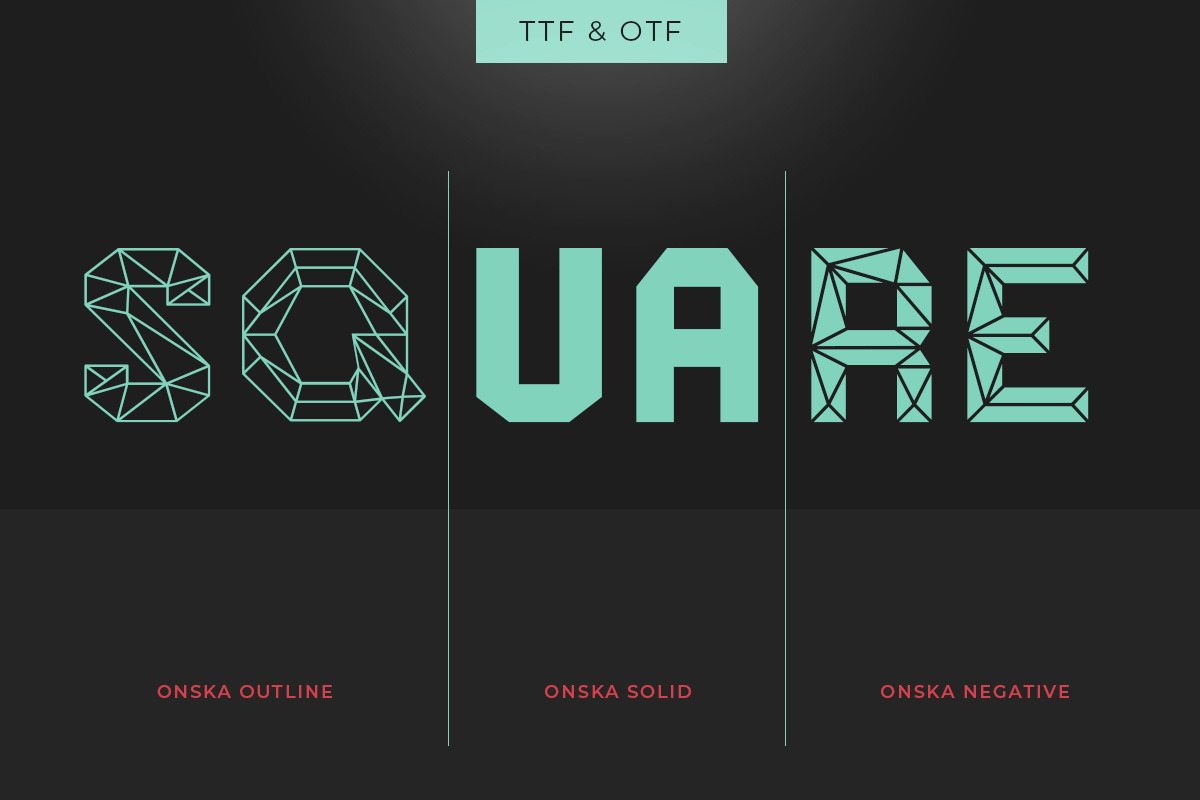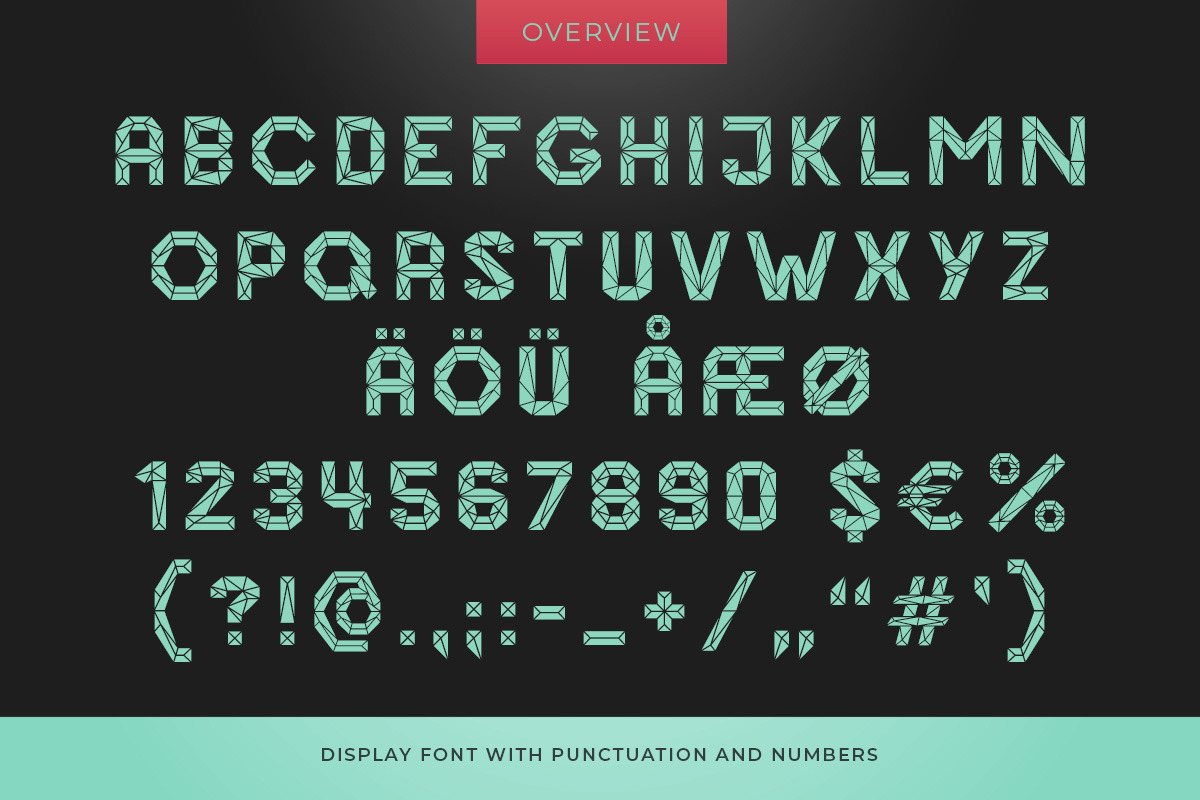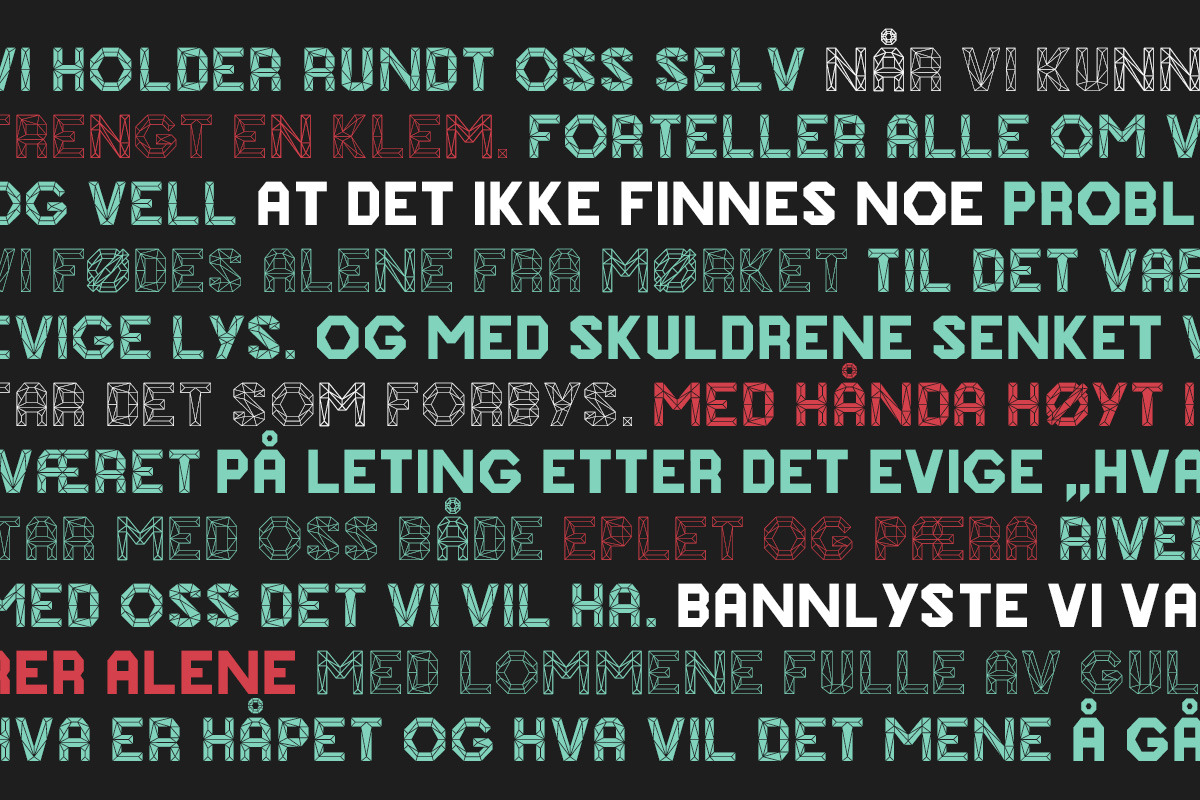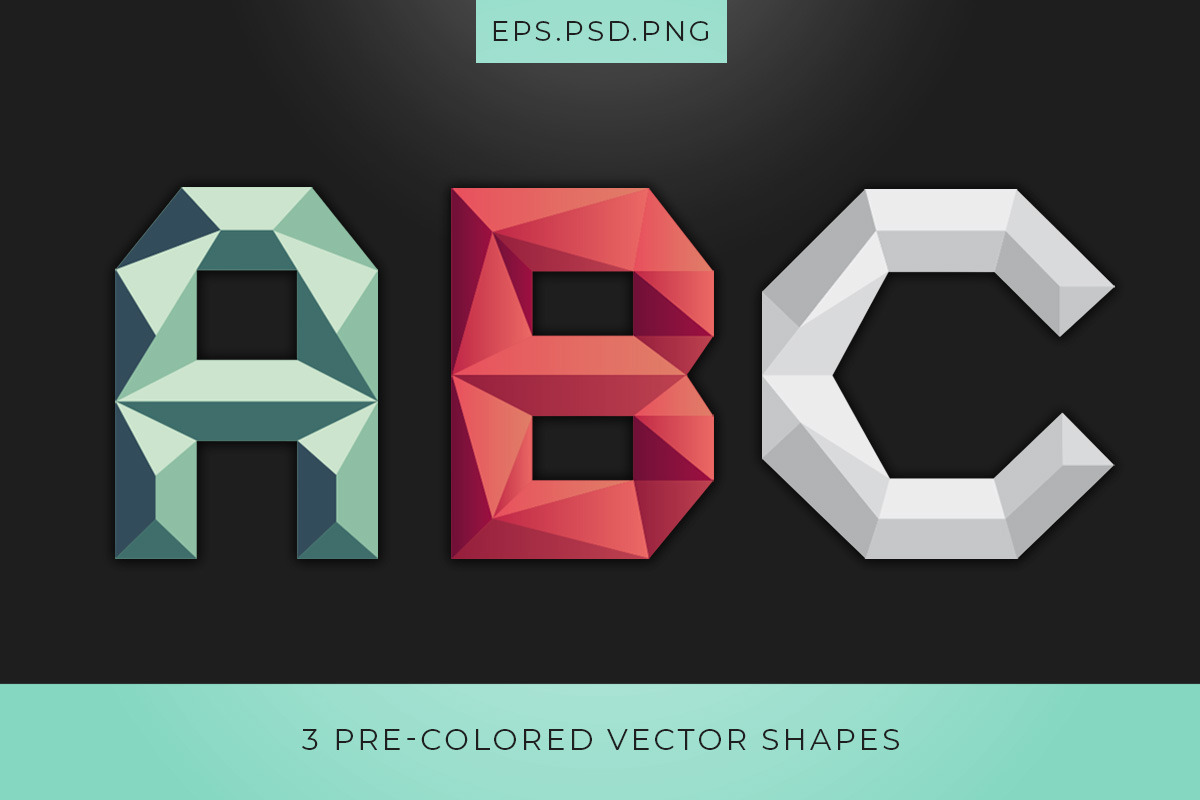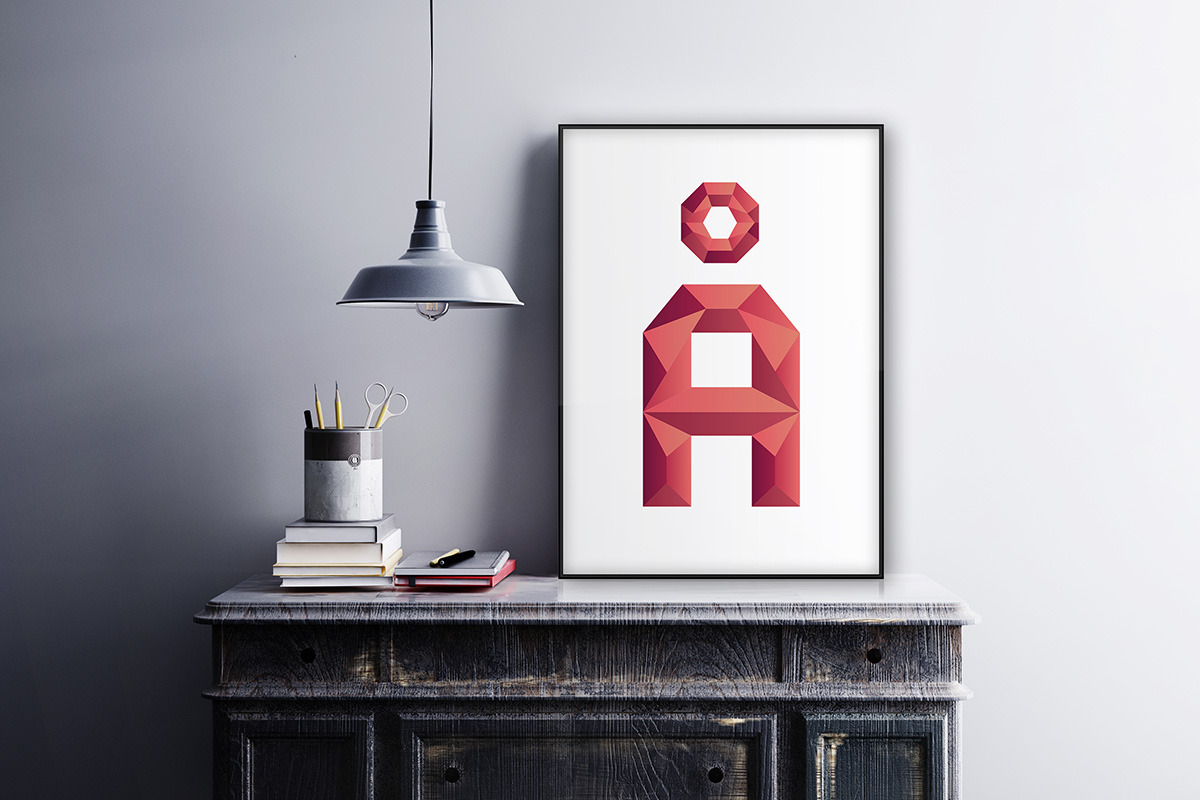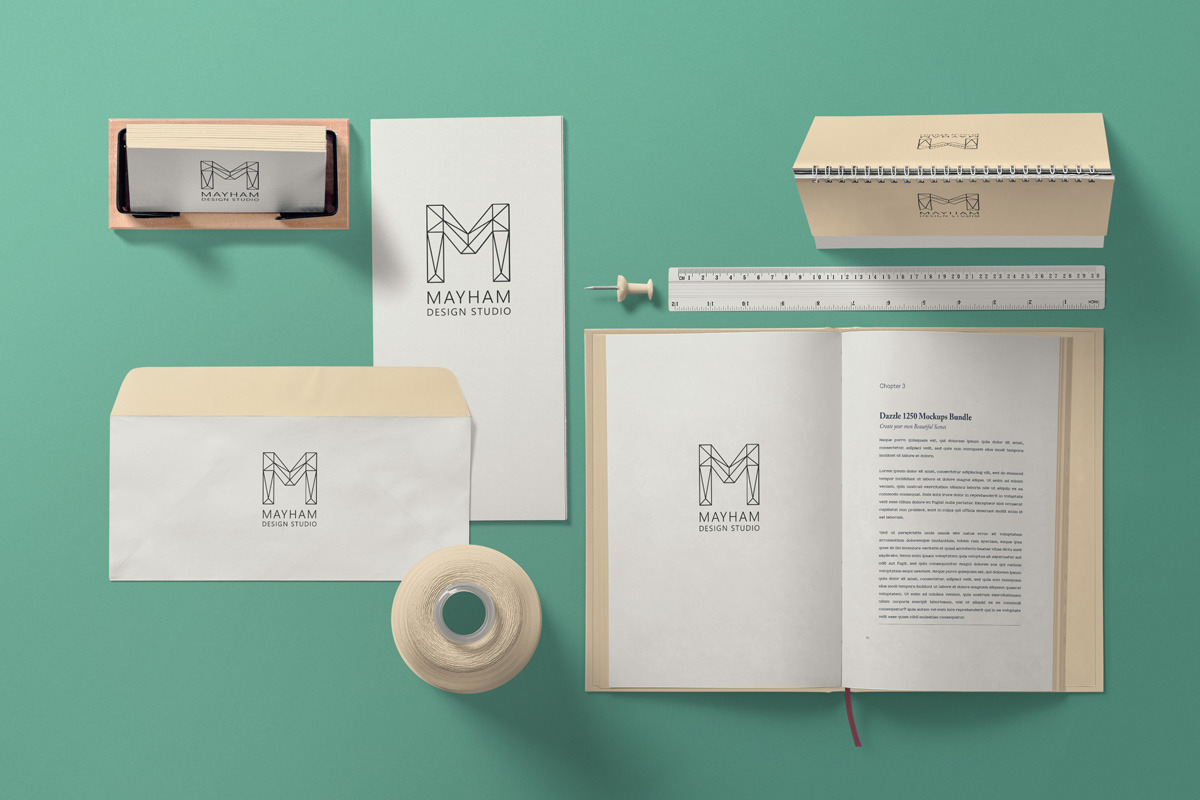
Onska - A Polygonal Display Font
Onska - A Polygonal Display Font by nordicworker is a font selected for branding, posters, packaging, typography.
- The colored vector letters are, of course, still part of this set and were also extended with the new characters.
- Onska Negative
- Onska Outline
- Onska Solid